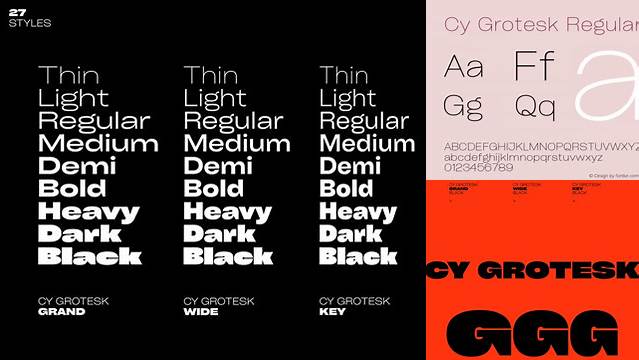
CY Grotesk Key Heavy Font: Free Download & Usage
When it comes to typography, choosing the right font can make or break your design. Whether you're crafting a brand identity, designing a website, or creating marketing materials, the font you select plays a huge role in conveying your message and setting the tone. Today, we're diving deep into a particularly interesting typeface: the CY Grotesk Key Heavy font. You might be wondering, "What's so special about this font?" Well, guys, this font offers a unique blend of modern aesthetics and classic legibility, making it a versatile choice for a wide range of projects. And the best part? You can often find it available for free download, which is a massive win for designers on a budget or anyone looking to experiment with their visual branding. In this comprehensive guide, we'll explore everything you need to know about the CY Grotesk Key Heavy font, from its characteristics and best use cases to where you can snag a free download. Get ready to level up your design game!
Understanding the Aesthetics of CY Grotesk Key Heavy
The CY Grotesk Key Heavy font is, as its name suggests, a heavy-weight variant of the CY Grotesk typeface family. This means it boasts a significant visual presence, with thick strokes and a bold character that demands attention. When we talk about its aesthetics, we're looking at a sans-serif font, which generally means it lacks the little decorative strokes (serifs) found at the ends of letters in serif fonts like Times New Roman. This gives it a clean, modern, and straightforward appearance. The "Key" in its name might refer to specific design choices or licensing, but its heavy weight is the standout feature. This boldness makes it incredibly readable, even at smaller sizes, and exceptionally impactful for headlines, logos, and any design element that needs to make a strong statement. The character shapes are often geometric and well-proportioned, contributing to its overall sense of balance and professionalism. It’s the kind of font that feels both contemporary and timeless, which is a tricky balance to strike. Think about how a bold font can change the entire mood of a poster; the CY Grotesk Key Heavy font excels at this, offering a powerful yet refined visual voice. Its substantial thickness ensures it cuts through visual clutter, making your message clear and unmissable. This font isn't just about being loud; it's about being clearly loud, with an underlying sophistication that prevents it from feeling crude or overwhelming. It's a carefully crafted tool for designers seeking maximum impact with effortless style.
Exploring the Typographic Characteristics of CY Grotesk Key Heavy
Let's get down to the nitty-gritty details of the CY Grotesk Key Heavy font. At its core, it's a sans-serif typeface, meaning you won't find any fussy serifs on the ends of its letters. This characteristic alone lends it a modern, minimalist vibe that’s super popular in today's design world. But what really sets the Key Heavy variant apart is its weight. We're talking serious thickness here, guys. The strokes are substantial, giving each character a solid, grounded feel. This isn't your flimsy, everyday font; this is a font with presence, a font that stands tall and proud. The x-height – that’s the height of the lowercase letters like 'x' – is generally generous in Grotesk-style fonts, contributing to excellent readability. This means that even though it's a heavy font, it doesn't become a jumbled mess when you use it for longer blocks of text (though it truly shines in headlines!). The letterforms themselves are typically well-defined, often with a balanced interplay between curves and straight lines. You'll find a good range of character support, including uppercase and lowercase letters, numerals, and punctuation, which is crucial for any practical design application. The overall impression is one of strength, clarity, and a touch of industrial chic. It’s a font that feels dependable and impactful, making it a go-to choice for designers who want their message to be seen and remembered. The careful construction of each glyph ensures that even with its boldness, there's an inherent elegance to its structure. This typeface is designed to perform, to convey authority and confidence, making it a powerful asset in any designer's toolkit. Its unique blend of boldness and clarity makes it exceptionally versatile, capable of adapting to a multitude of design contexts while maintaining its distinctive character.
The Significance of 'Heavy' in Font Weights
When we talk about font weights, 'Heavy' isn't just a descriptive term; it signifies a specific level of boldness within a typeface family. Think of it as the font's muscle. In the typographic world, weights range from incredibly thin (like 'Thin' or 'Light') all the way up to super thick ('Black' or 'Heavy'). The 'Heavy' weight, like in the CY Grotesk Key Heavy font, sits at the bolder end of this spectrum. It’s designed to be noticed, to carry significant visual weight, and to make a powerful impact. Why is this important? Well, different weights serve different purposes. Light weights are ethereal, often used for elegant subheadings or subtle accents. Regular weights are your workhorses, perfect for body text. But Heavy weights? They're your exclamation points! They are ideal for grabbing attention immediately. This is why CY Grotesk Key Heavy is a fantastic choice for headlines, titles, call-to-action buttons, or any element where you need to draw the reader's eye instantly. Using a heavy font like this can inject energy and drama into a design. It conveys a sense of importance, strength, and sometimes even urgency. However, it’s crucial to use heavy weights judiciously. Too much of a good thing can be overwhelming. Imagine reading a whole article written in CY Grotesk Key Heavy – your eyes would likely get tired pretty quickly! That’s why it's best reserved for those key pieces of information you want to stand out. The heavy nature of this font ensures that your message doesn't just sit on the page; it lands with impact, leaving a lasting impression on your audience. It's a strategic choice for designers aiming for maximum visibility and persuasive power.
Decoding the 'Key' in CY Grotesk Key Heavy
The 'Key' in CY Grotesk Key Heavy might seem a bit mysterious, and its exact meaning can sometimes depend on the foundry or designer who created the font. Often, suffixes like 'Key' can denote specific characteristics or variations within a font family. Sometimes, it might indicate a particular design refinement, a set of alternative glyphs, or even a specific licensing model. For instance, 'Key' could imply that this particular heavy weight is central or essential to the family's design language, or perhaps it was a key development in its creation. It’s also possible that 'Key' refers to a specific set of features or a particular application the font was designed for – maybe it's considered 'key' for certain types of branding or editorial work. Without direct information from the creators, it’s a bit of a stylistic clue. However, regardless of the precise interpretation of 'Key', the 'Grotesk' and 'Heavy' parts are clear: it's a sans-serif font with substantial thickness. The most practical approach is to focus on the undeniable visual traits – its boldness and modern sans-serif structure. Think of 'Key' as adding a subtle layer of intrigue, but the core functionality and aesthetic are driven by its Grotesk style and Heavy weight. It's the combination of these elements that gives the font its unique personality and power. Ultimately, the 'Key' might just be a name, but the impact of the font is what truly matters, and in this case, that impact is undeniably bold and significant.